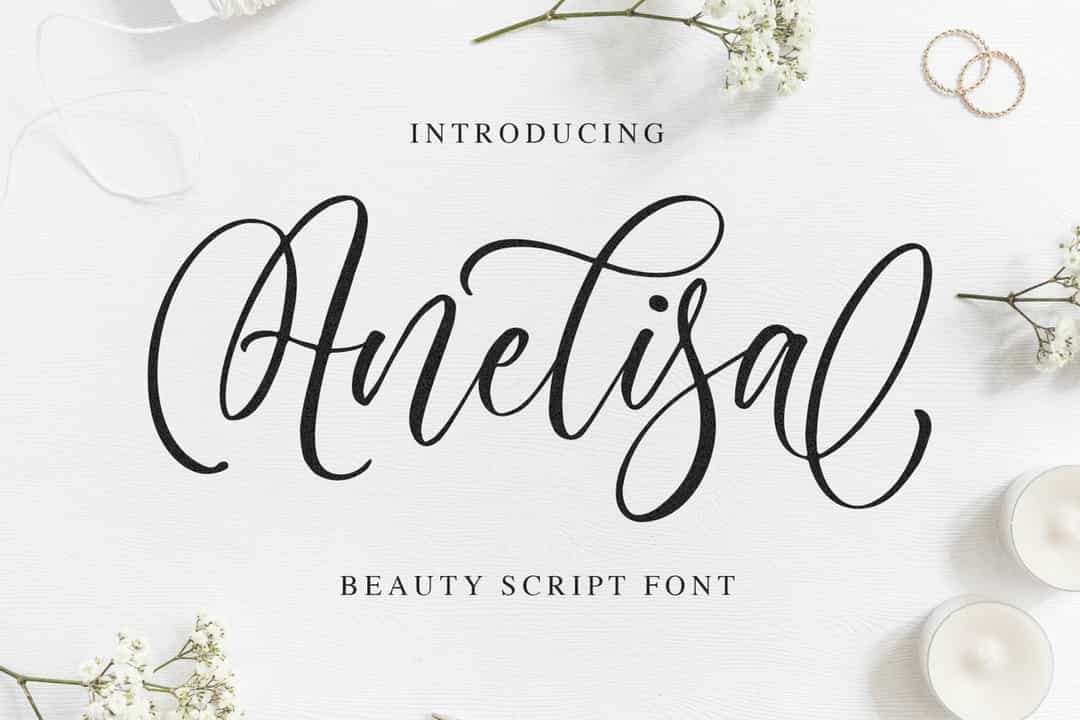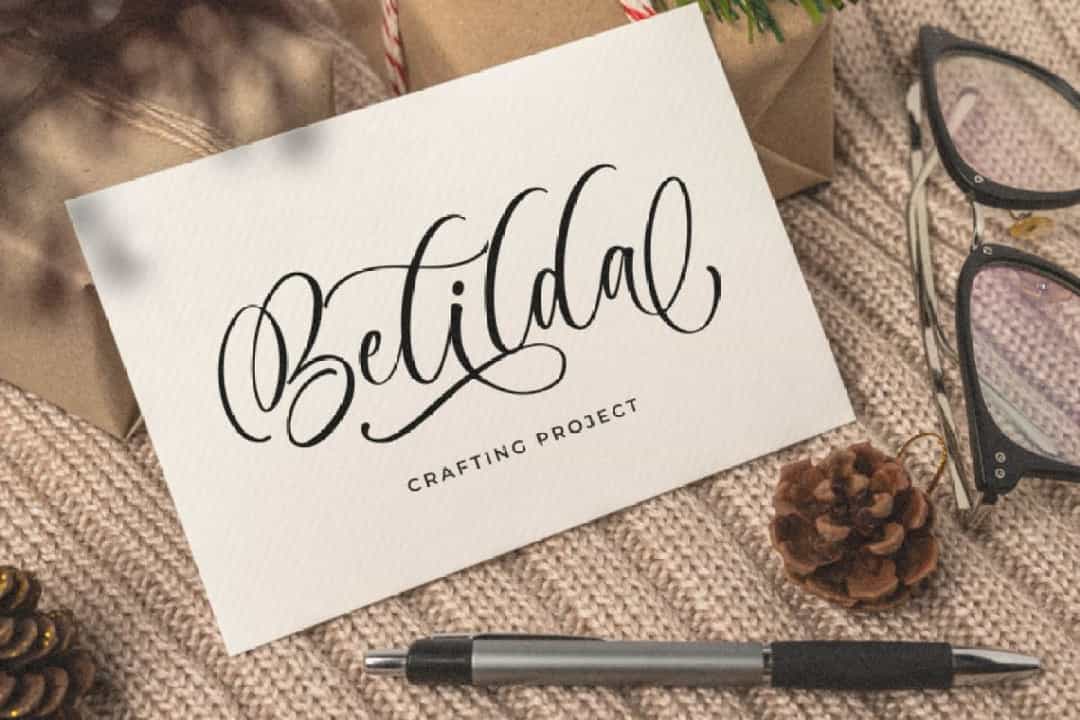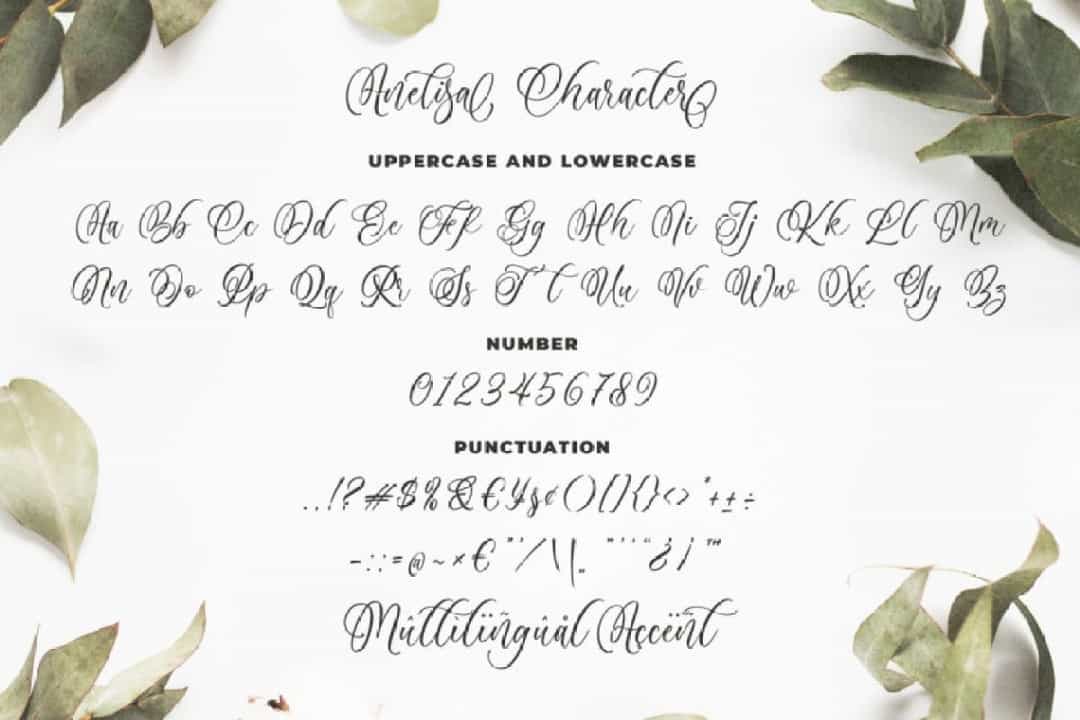
Discover Anelisa Font, part of the Calligraphy collection—a versatile and unique font perfect for adding a personal touch to your projects. Download it for free and enjoy crafting designs with style, from invitations to social media posts. This font is available exclusively for personal use, giving you the freedom to create without limits. Unlock your creativity with Anelisa Font today!
The Anelisa Beauty Calligraphy Font which is based on bouncy scripts will be an ideal font for T-shirt design, display crafting, quote sign logotypes etc.